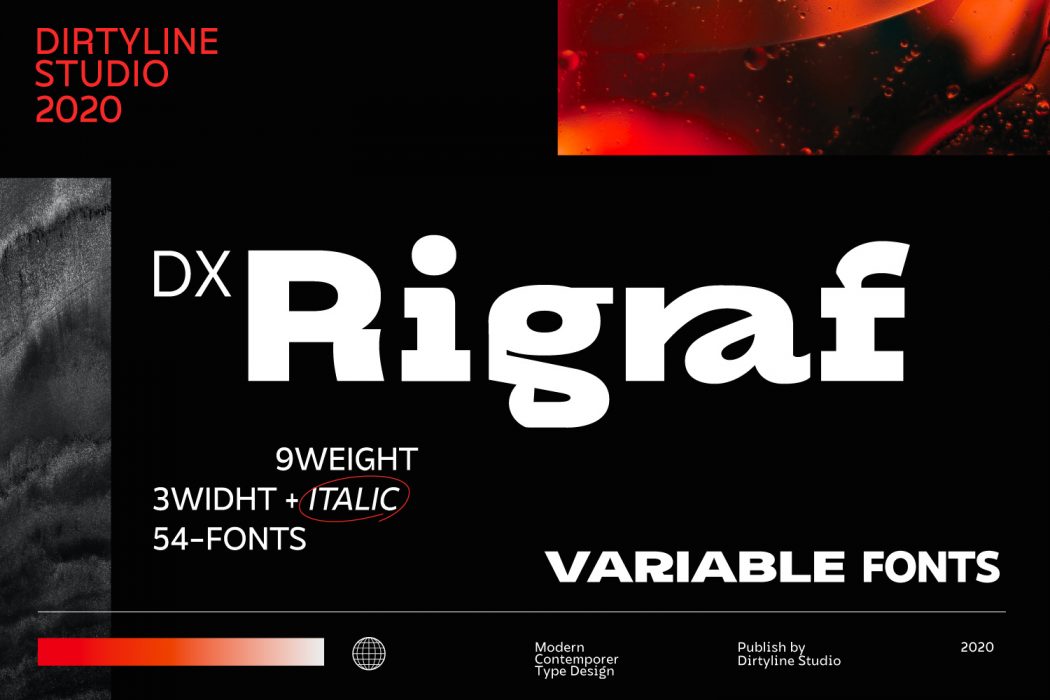
DX Rigraf Font
DX Rigraf Font is perfect for industrial design studios, construction company branding, architectural blueprint labels, engineering firm logos, technical documentation, manufacturing equipment signage, precision machinery advertising, and structural engineering materials.
This font is exciting because it embodies industrial precision with engineered letterforms that capture the exact specifications and technical excellence of advanced manufacturing and engineering design systems. DX Rigraf Font brings mechanical sophistication to designs through its structured geometry and technical styling that feels like typography drafted with CAD precision and manufactured to exacting tolerances. The font's engineering character makes it perfect for technical brands and want to communicate accuracy, reliability, and the kind of systematic precision that builds bridges, skyscrapers, and the infrastructure of modern civilization.
The DX Rigraf Font family includes Regular, Bold, Light, Technical, Blueprint, and Industrial variants, each designed to capture different aspects of engineering excellence while maintaining the font's characteristic technical appeal and manufacturing authenticity. The character set features precise details that enhance the font's connection to industrial design and mechanical engineering.
Whether you're creating branding for engineering companies, designing materials for technical applications, or developing content that needs to project industrial precision, DX Rigraf Font Free Download delivers the systematic typography that builds confidence in technical excellence and engineering integrity. This remarkable typeface transforms text into technical specifications that resonate with the same exacting standards and structural reliability found in the world's most advanced engineering projects, ensuring your message communicates the uncompromising precision and technical mastery that defines brands committed to building the future through superior engineering and manufacturing excellence.